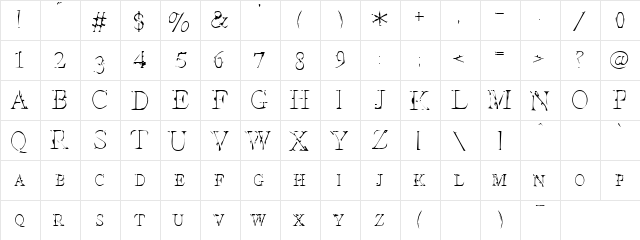
Terrible X Regular
Design Context for Terrible X Typeface
Terrible X takes a measured approach to typography — its balanced proportions and neutral character make it a reliable workhorse for both digital and print work.